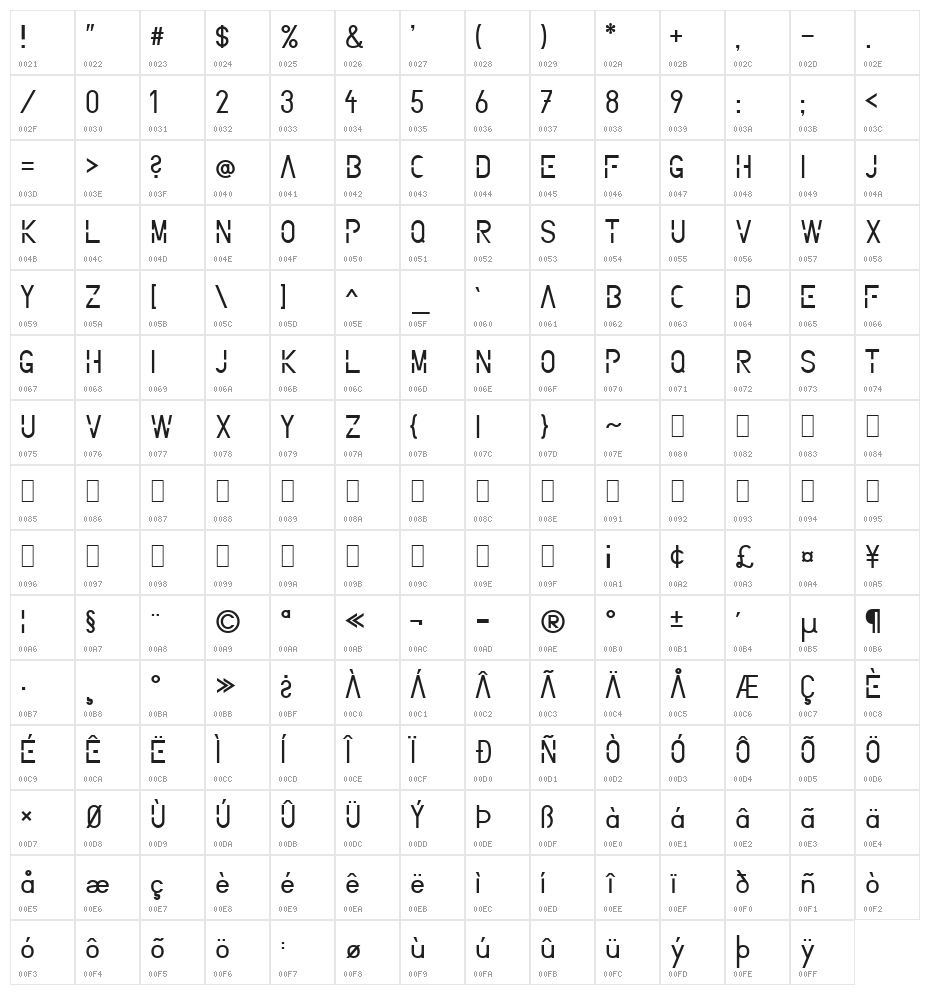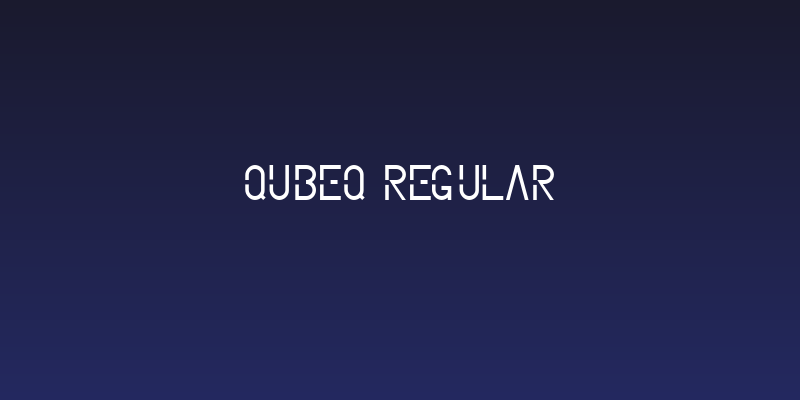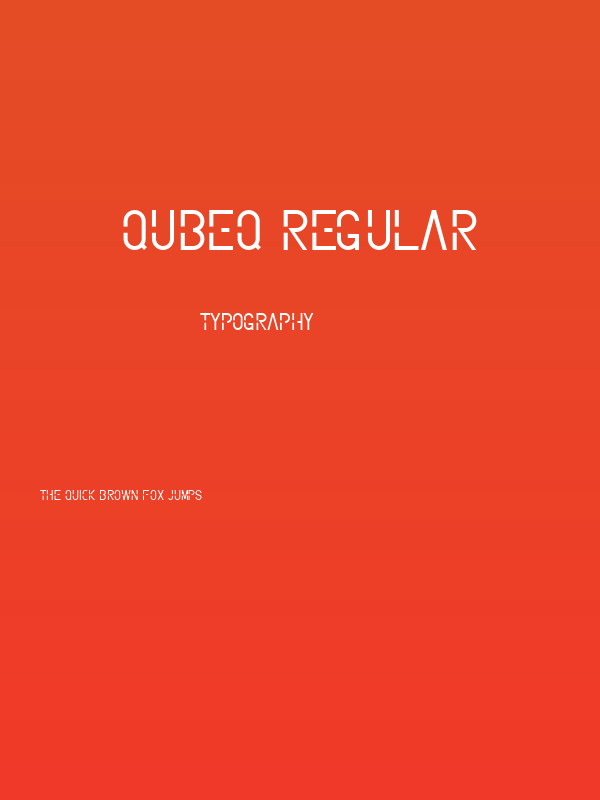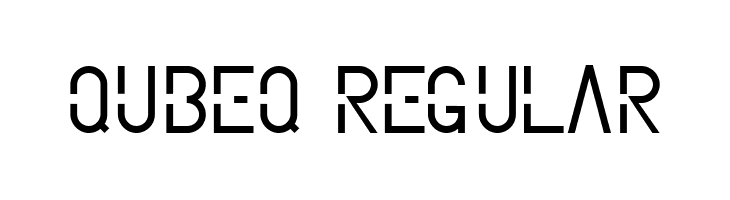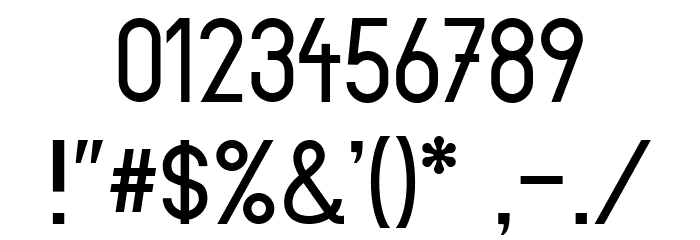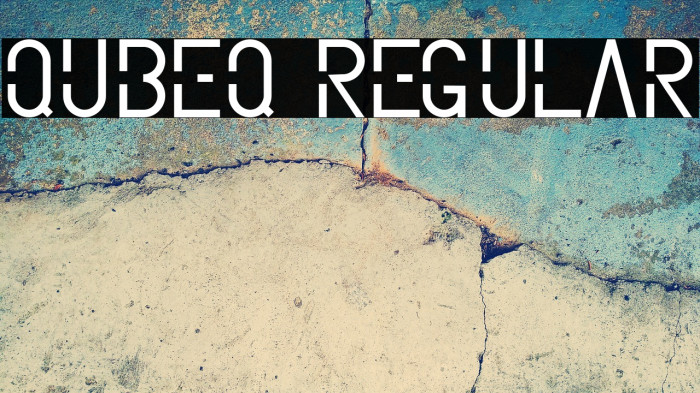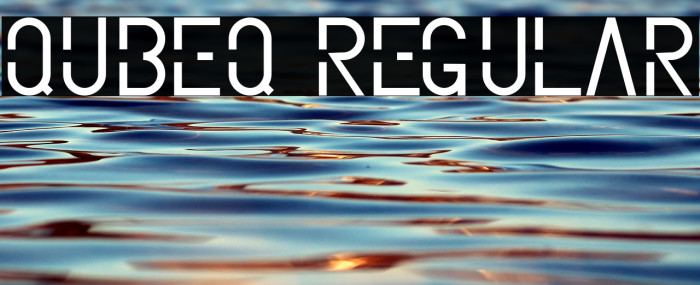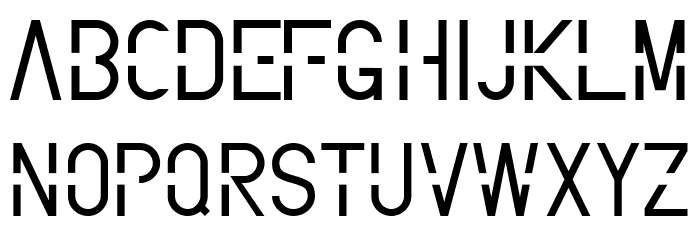
qubeq Regular Font
qubeq Regular Description
This font features a modern, geometric design with a distinct, futuristic appeal. The characters are constructed with clean, straight lines and sharp angles, giving it a structured and technical appearance. The uppercase and lowercase letters maintain a consistent height, contributing to a uniform and balanced look. The numerals and special characters follow the same geometric style, ensuring cohesion across all elements. This font's design is both bold and minimalistic, making it suitable for contemporary and tech-oriented projects.
| Use Case | Headlines, Logos, Digital interfaces |
| Proposed Projects | Ideal for tech branding, modern advertising, digital interfaces, and futuristic-themed designs. |